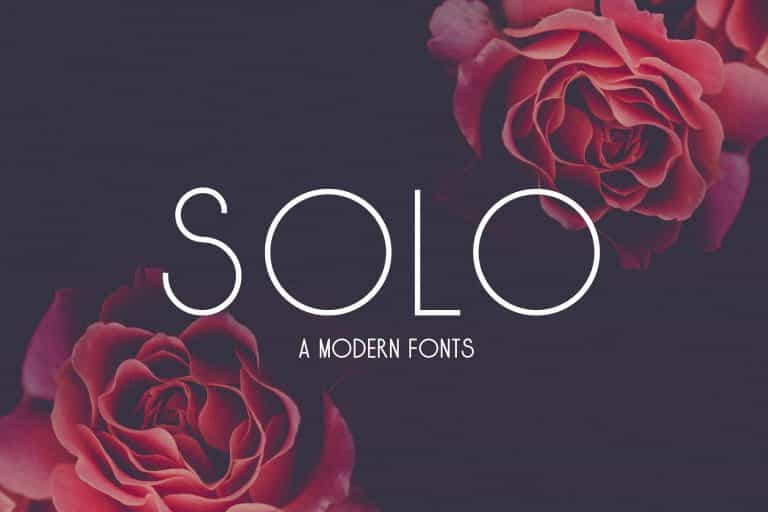
Introducing Solo Font. SOLO – as a sans serif font, includes 6 fonts in 1 family, based on the modern minimalist sign and isolation. SOLO is a minimalistic, modern and clean. With letters, numbers, multiple languages and punctuation.